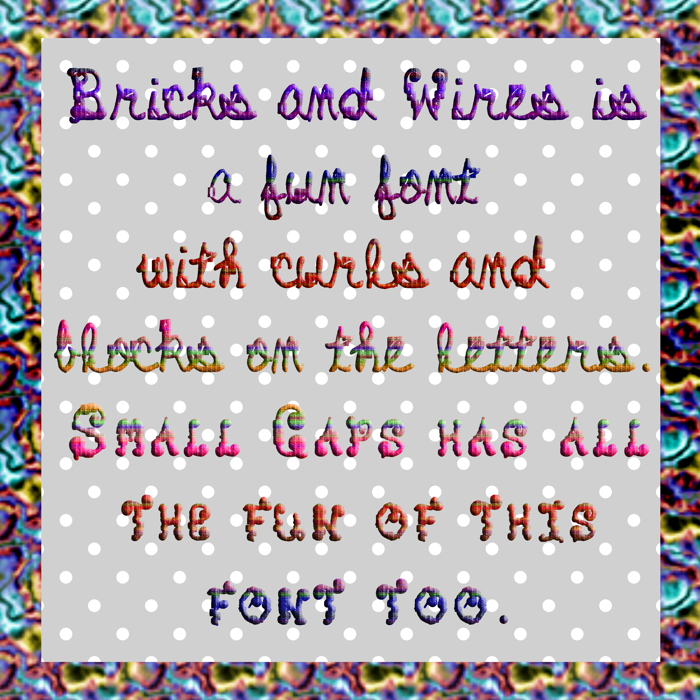
Bricks and Wires Font
Bricks and Wires has rectangles and curls signifying bricks and wires. It is an ornate but fun font using a handwritten cursive base.